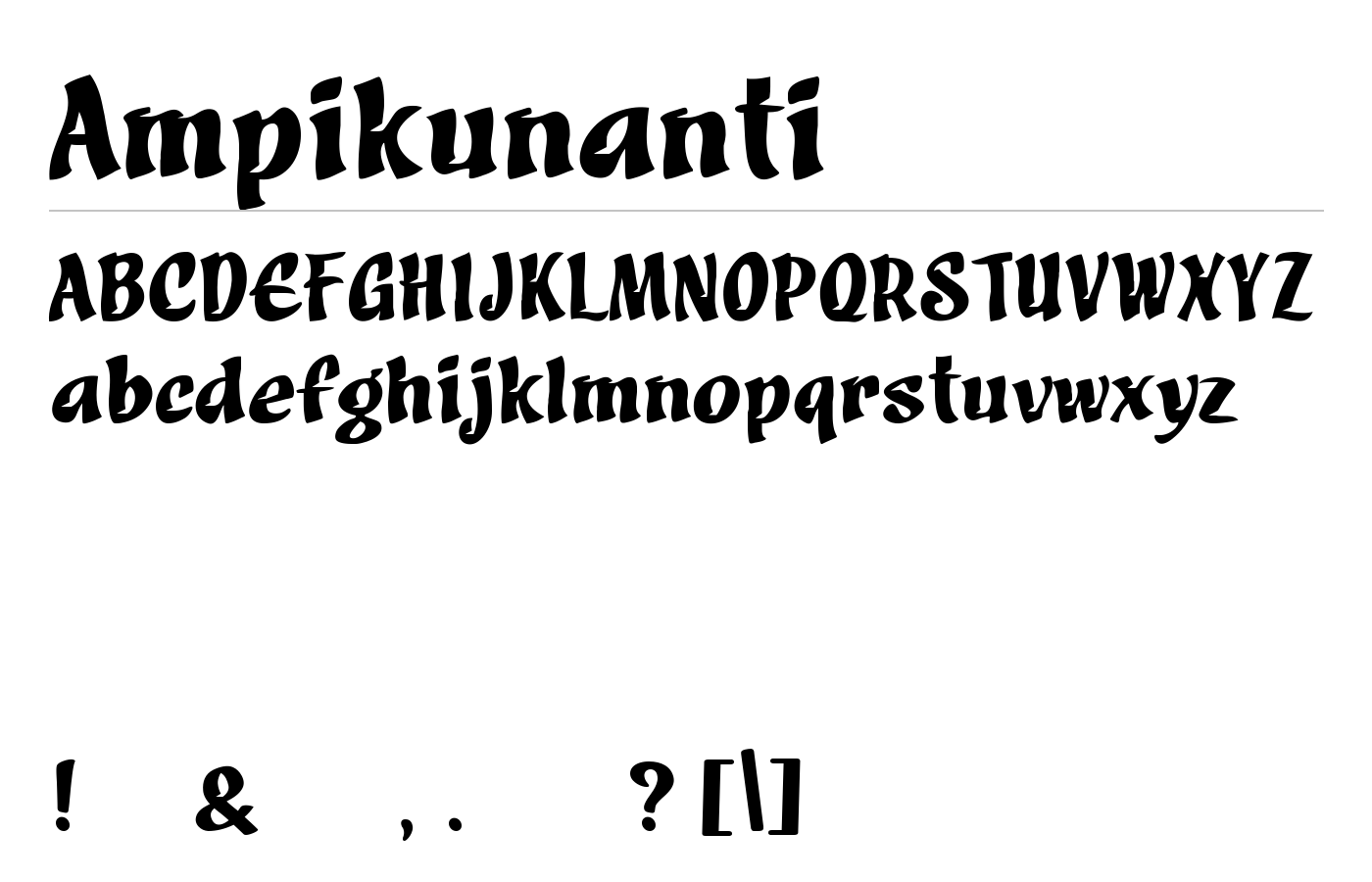
Ampikunanti is a bold serif font with a playful, hand-crafted feel that blends traditional serif characteristics with a casual, artistic twist. Its moderately high contrast strokes and slightly irregular shapes give it personality and movement, making it ideal for creative branding, packaging, and eye-catching headlines where a distinctive and approachable style is desired. This font works well for projects that aim to stand out with a unique and friendly touch while retaining readability and charm.
Ampikunanti Font